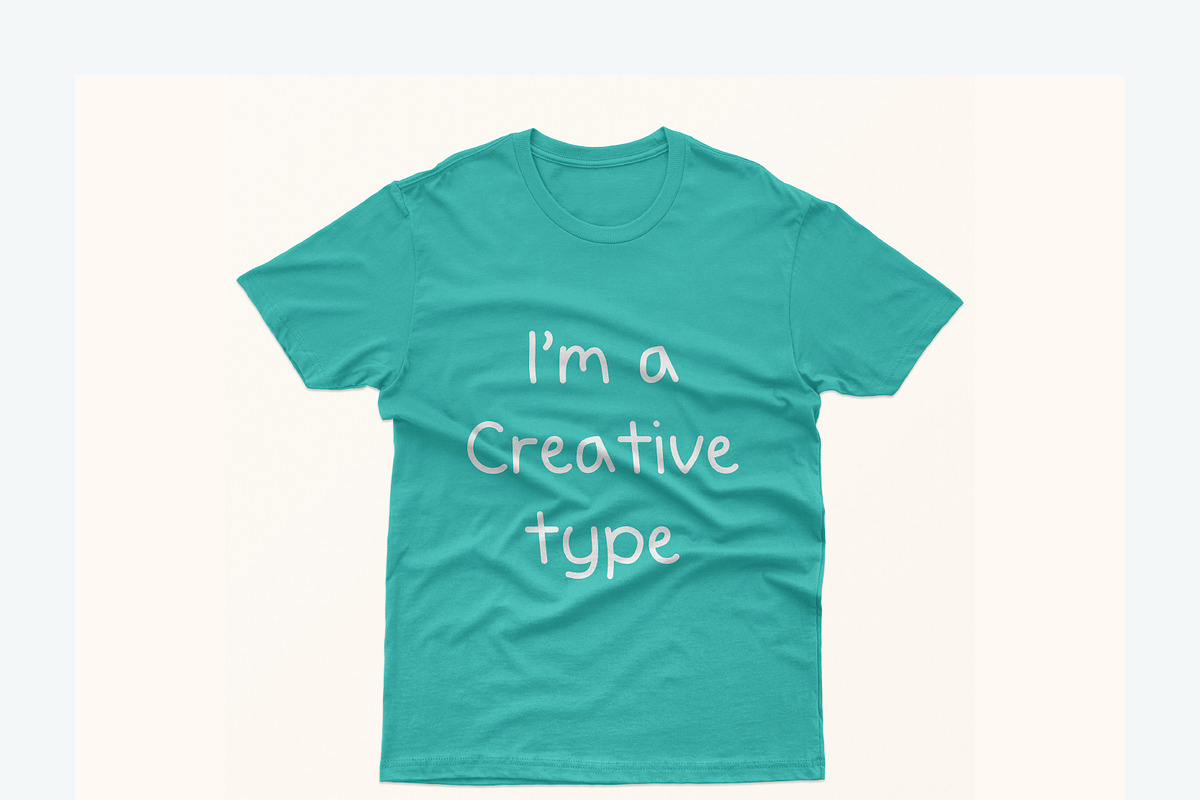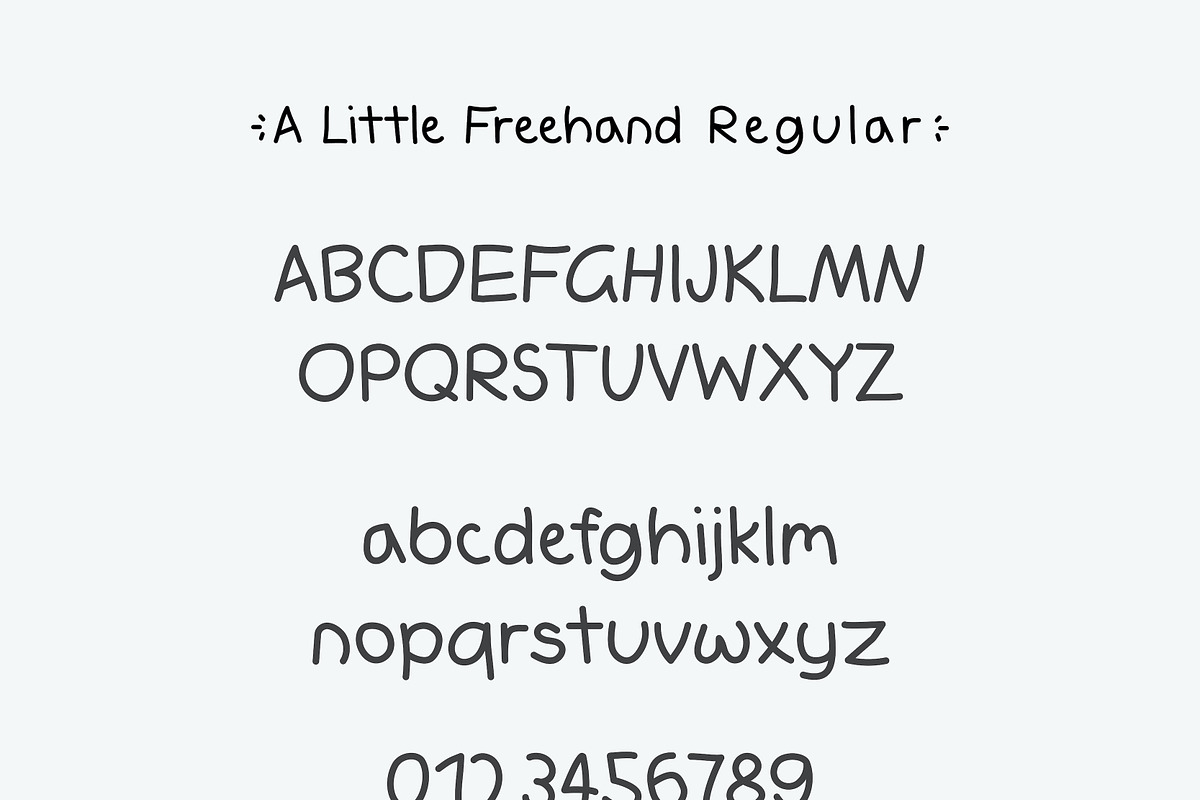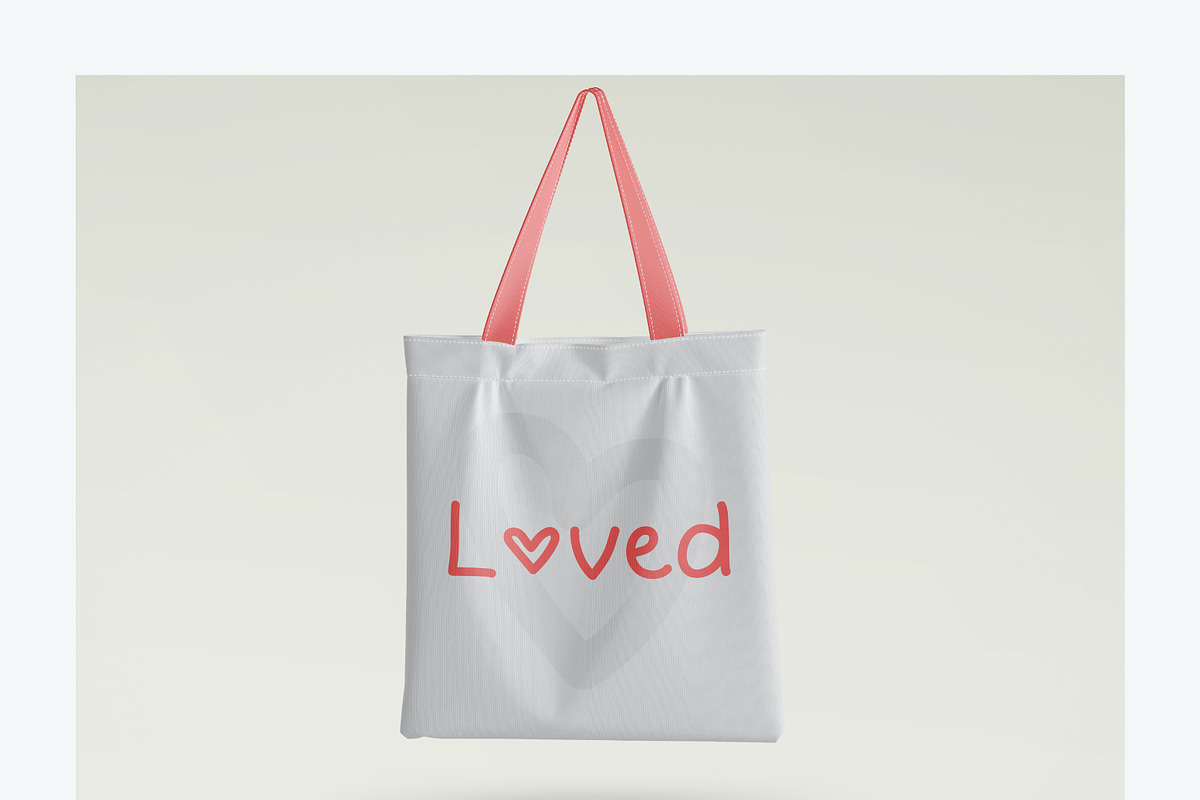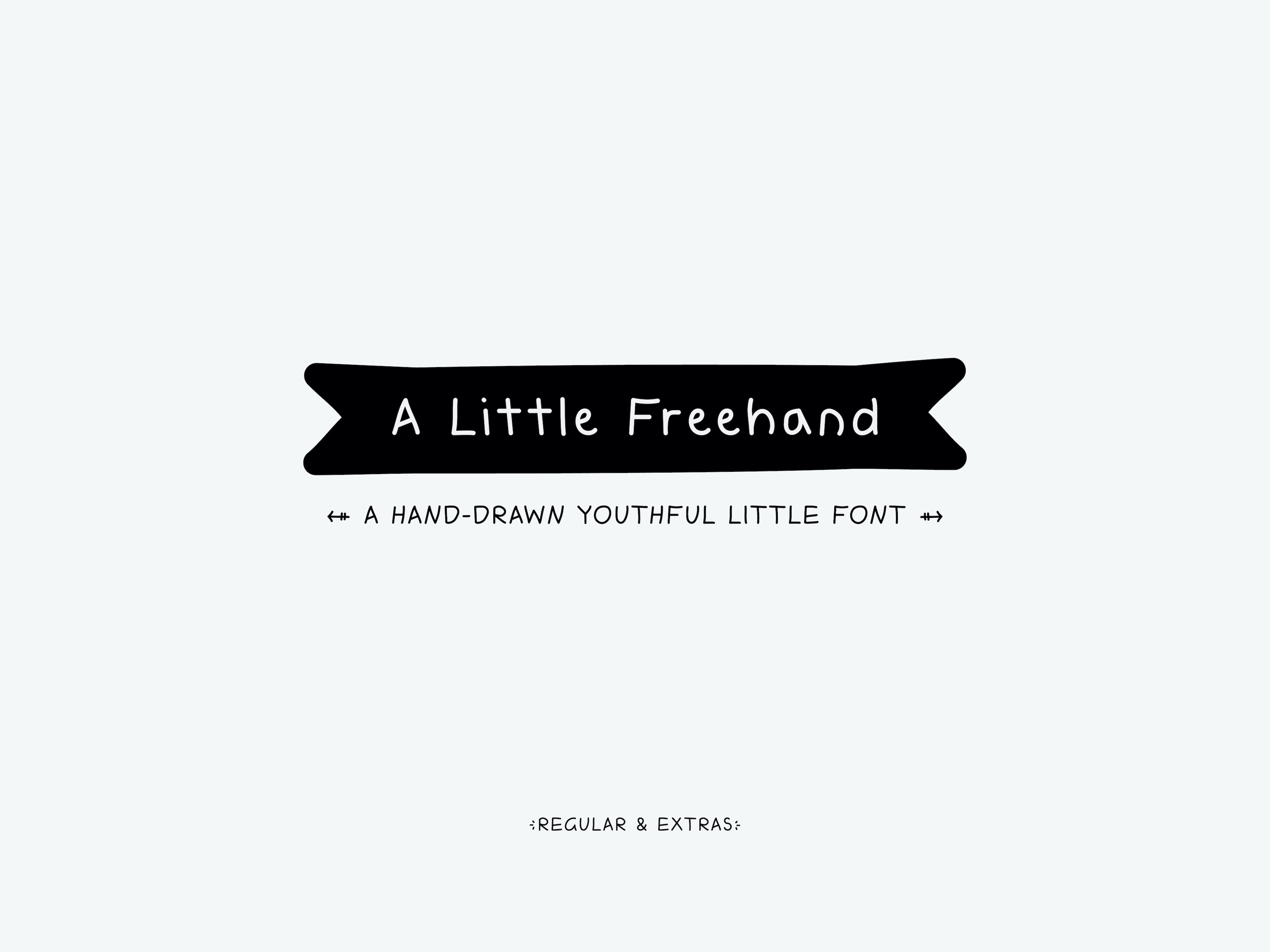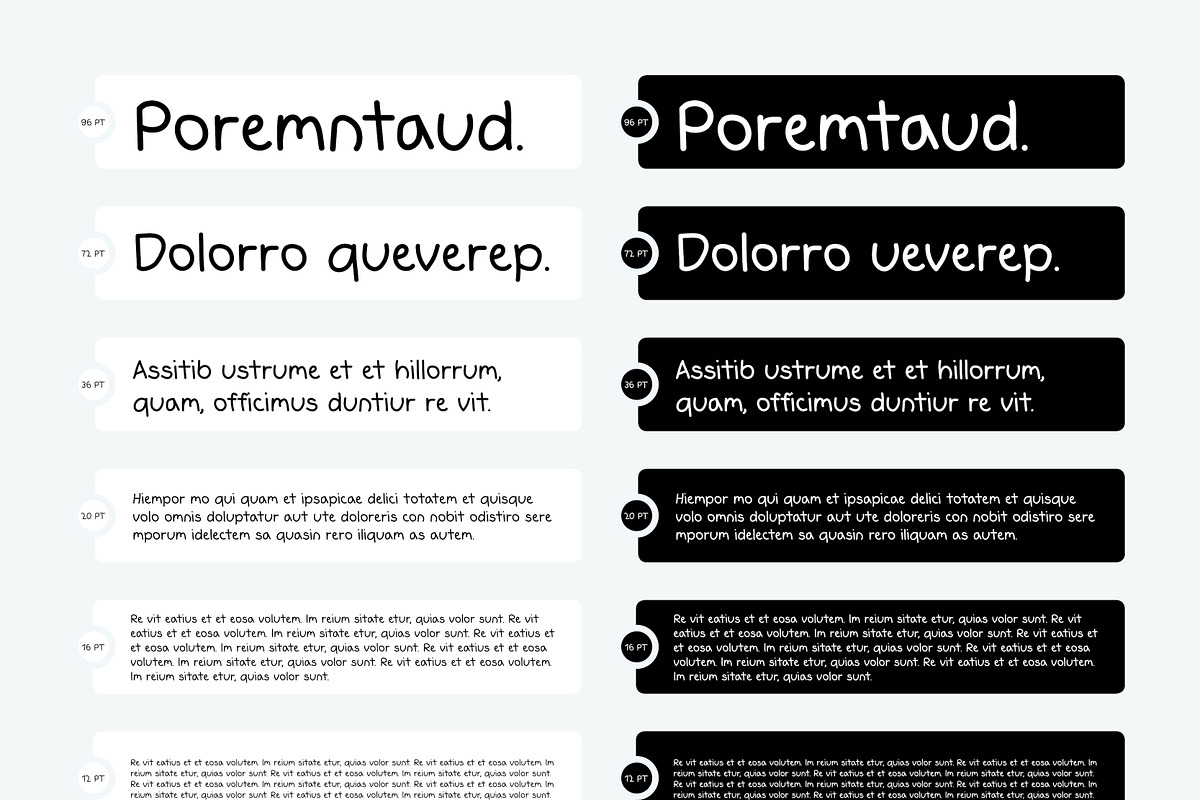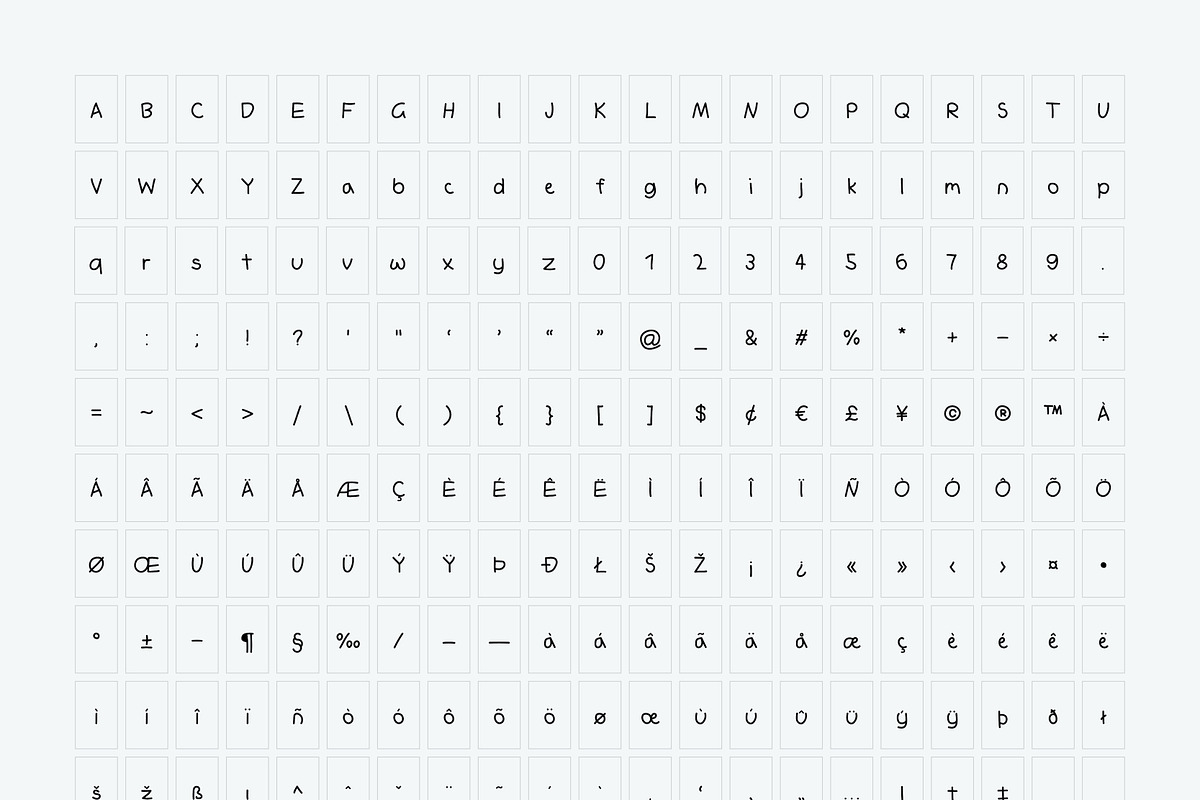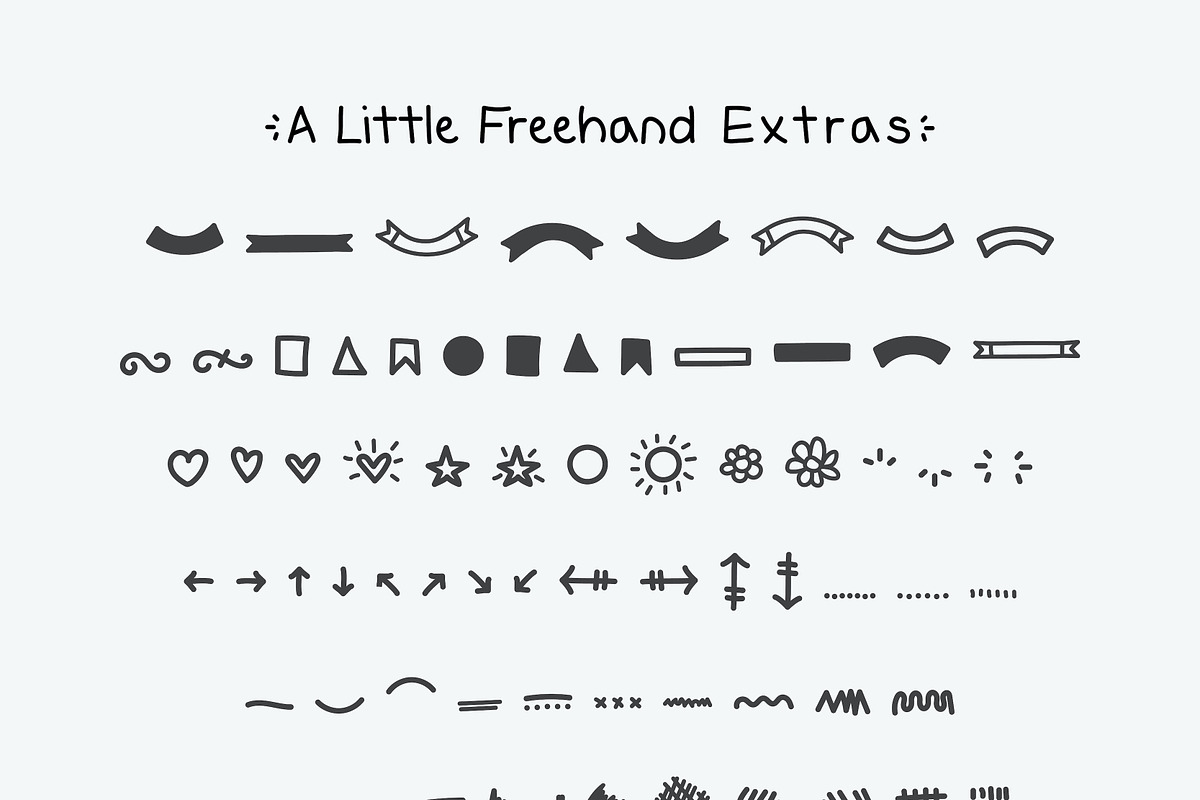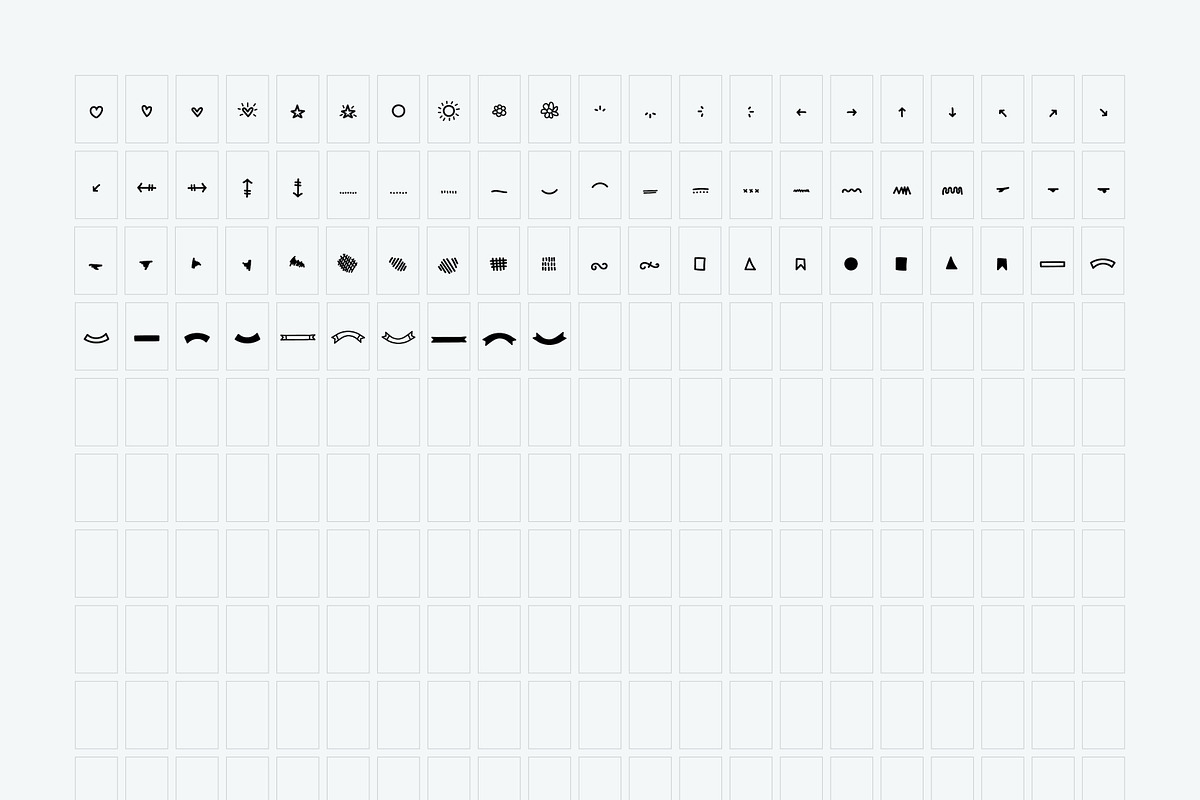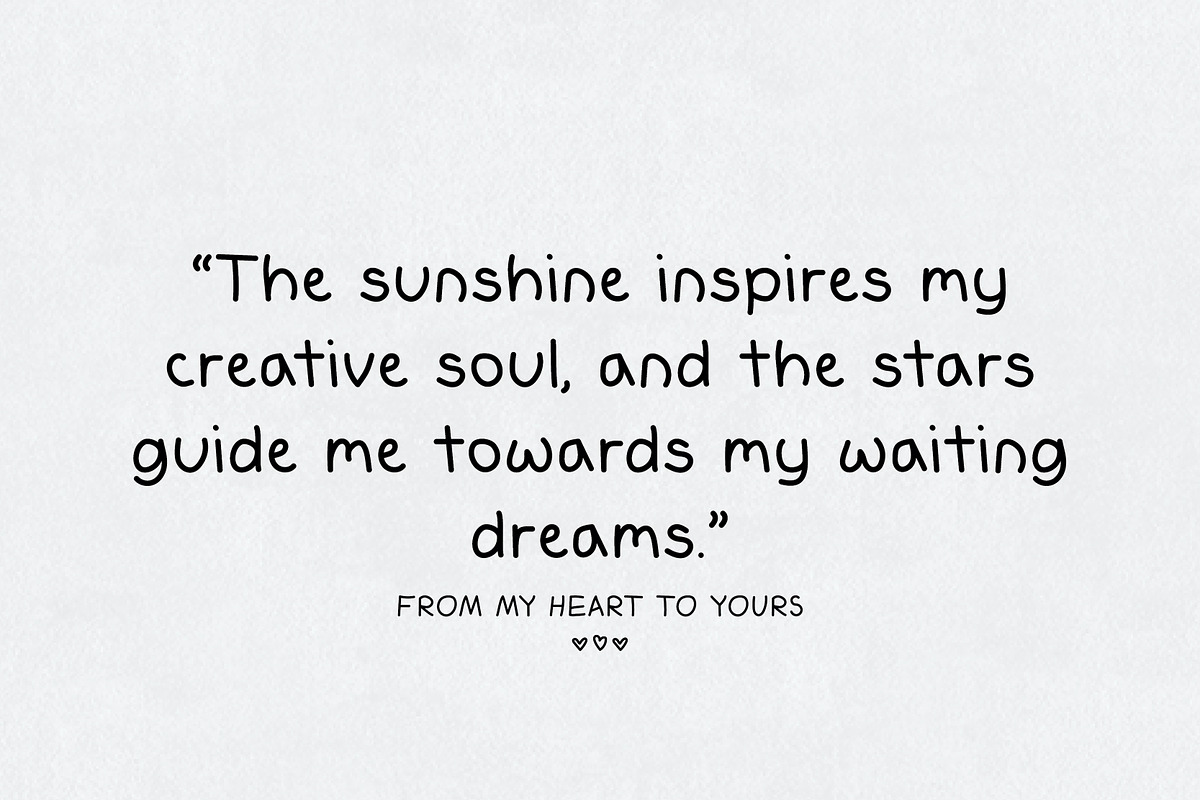
A Little Freehand Font
A Little Freehand is a hand-drawn youthful little font that includes uppercase, lowercase, punctuation, accented characters and decorative extras.